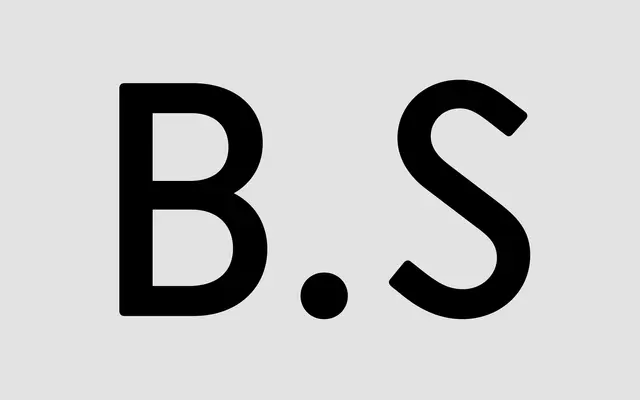
Bermondsey Sans
A mechanically constructed sans inspired by stone-carved lettering on a South London building, with lowercase and numerals invented to complement the distinctive uppercase source material.
Drawn from the carved lettering on St. Saviour's House in Bermondsey, the uppercase carries the engineered simplicity of its architectural source. The lowercase letters, numerals and punctuation are A2-Type's own invention, built from details observed in the capitals rather than borrowed from any typographic tradition. Available in five weights from Regular to Black, it suits display and identity work where a slightly idiosyncratic, place-specific character is wanted.
Described as mechanical and inspired by stone-carved lettering, Bermondsey Sans has a constructed, engineered quality that places it squarely in the geometric sans tradition, with uppercase letterforms driving the overall character.